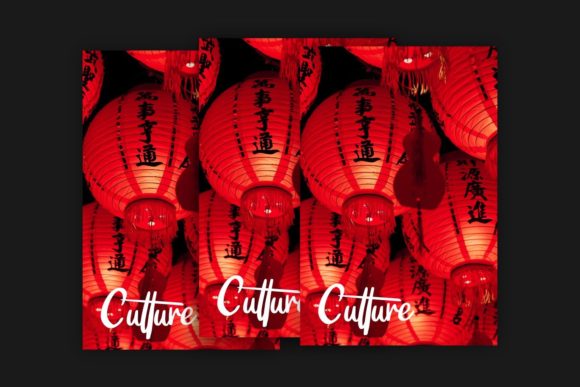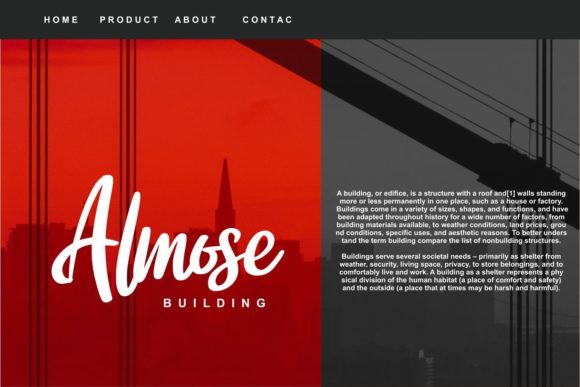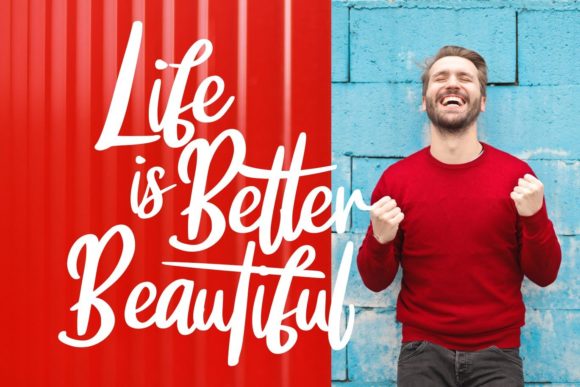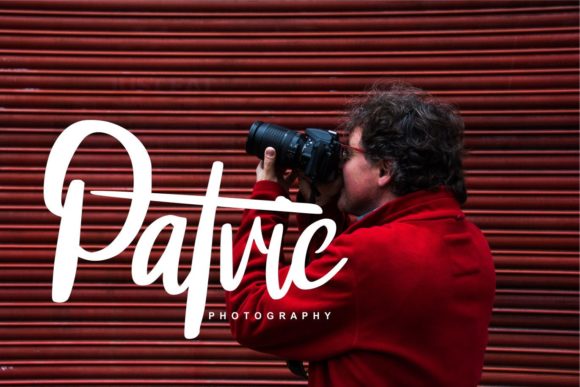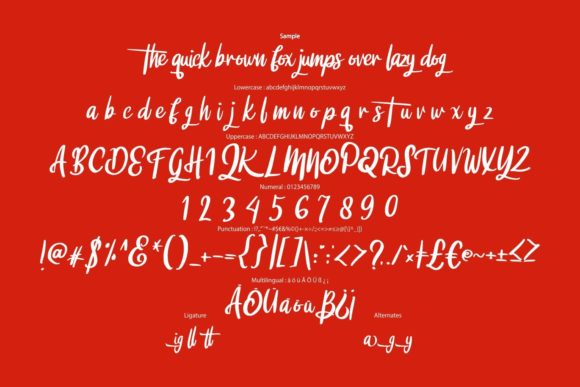
Introduction to Digtta Font
Have you ever stared at a blank canvas, trying to spark that elusive creative moment? For many designers, it’s the moment when inspiration strikes, and the perfect font is the key to unlocking a truly exceptional project. For those who crave a touch of elegance and sophistication, the Digtta Font is an exquisite handwritten font that’s sure to become a true favorite.
Masterfully designed to evoke classy calligraphic influences while feeling contemporary and fresh, the Digtta Font is a valuable resource for designers looking to elevate their creative projects to the next level. With its high-quality design, it’s perfect for a wide range of applications, from branding and marketing materials to digital art and more.
Honest Review: Digtta Font
I recently had the chance to work with the Digtta Font in one of my creative projects, and I was quite impressed. This font is a great addition to any designer’s toolkit, offering a high quality and versatile design resource.
One of the standout features of the Digtta Font is its transparent background, making it easy to use and combine with other design elements. The font itself is well-designed, with a clean and modern aesthetic that’s perfect for a variety of creative applications.
Here are some of the things that work well with the Digtta Font:
- ✨ High quality design that’s perfect for print and digital applications
- ✨ Transparent background for easy layering and combination
While the Digtta Font is a great resource, there are a few limitations to be aware of:
- ⚠️ Limited character set, which may not be suitable for long-form text
- ⚠️ Not ideal for use in very small sizes, where the font may become difficult to read
Overall, I’m really impressed with the Digtta Font and would definitely recommend it to designers looking for a high-quality, versatile font for their creative projects.
Digtta Font is ideal for creative projects that require high-quality, transparent backgrounds. It’s a great design resource for creating unique and eye-catching graphics. You can use it to create social media graphics, logos, or even digital artwork.